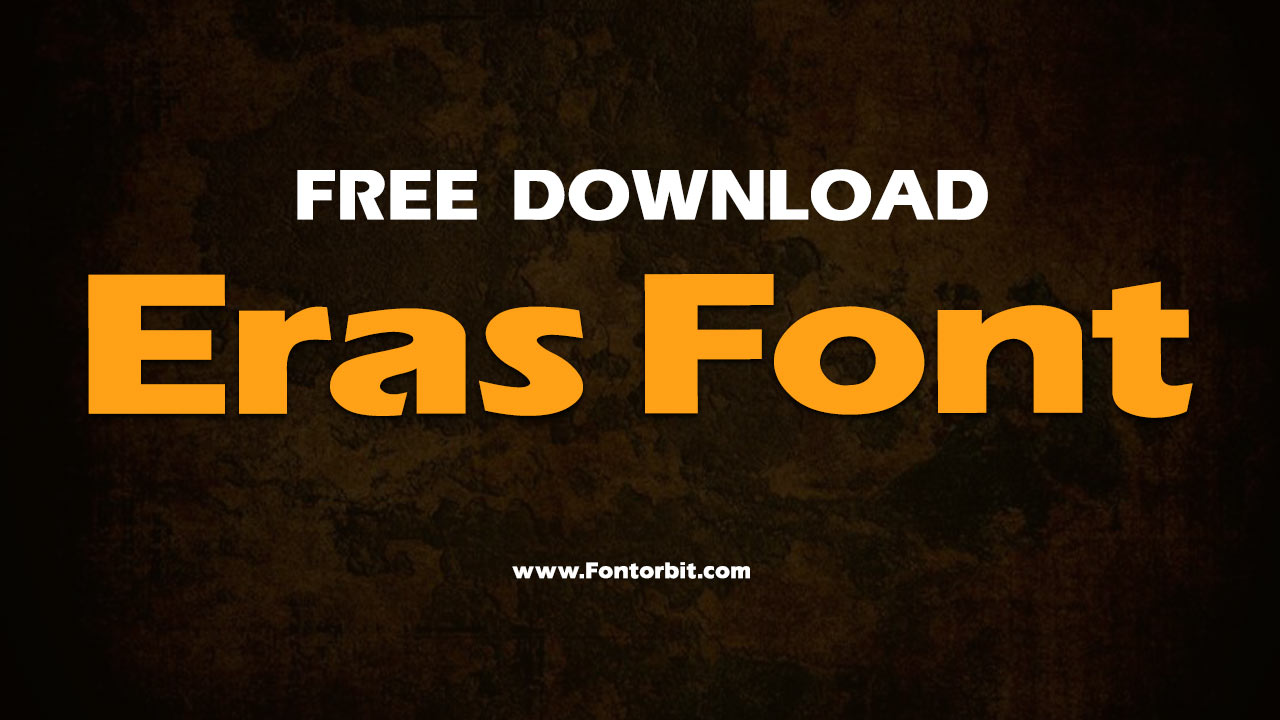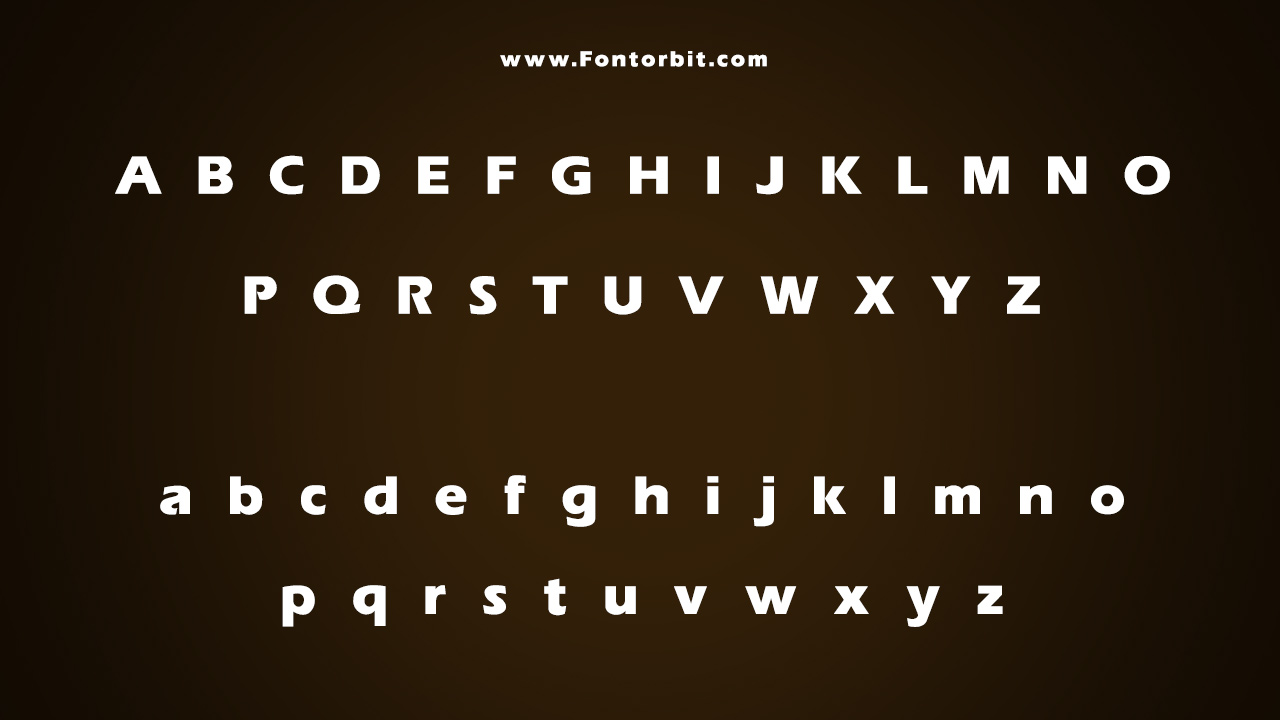
Eras is a humanist sans-serif typeface created by Albert Boton and Albert Hollenstein. The International Typeface Corporation (ITC) introduced it in 1976.
Eras Family Includes
The Eras font family is noted for its simplicity and legibility. It includes a variety of weights and styles suitable for different design needs. The family includes:
- ITC Eras Std Light
- ITC Eras Std Book
- ITC Eras Std Medium
- ITC Eras Std Demi
- ITC Eras Std Bold
- ITC Eras Std Ultra
- ITC Eras Light Regular
- ITC Eras Medium
- ITC Eras Bold
- ITC Eras Book Regular
- ITC Eras Demi Regular
- ITC Eras Ultra Regular
Notable Uses Of Eras
- Book covers
- Picture books
- Promotional videos
- Tutorial videos
- Animated logos
- Trailers
- Presentations
- Websites
- Comic books
- Album art
Eras is ideal for use in:
- Corporate branding and logos
- Magazine and newspaper headlines
- Website typography
- User interface design
Eras remains a valuable typeface for designers seeking a clean and contemporary look. Its various weights and styles provide flexibility, making it a solid choice for both print and digital media.
1.What Is The Eras Font?
Eras is a sans-serif typeface known for its clean and modern look, designed by Bob Newman.
3.What Makes Eras Stand Out?
Its geometric shapes and modern style make it distinctive.
4.Is Eras Suitable For Web Use?
Yes, its clean design makes it ideal for websites.
5.Can Eras Be Used For Print Media?
It’s suitable for both digital and print designs.